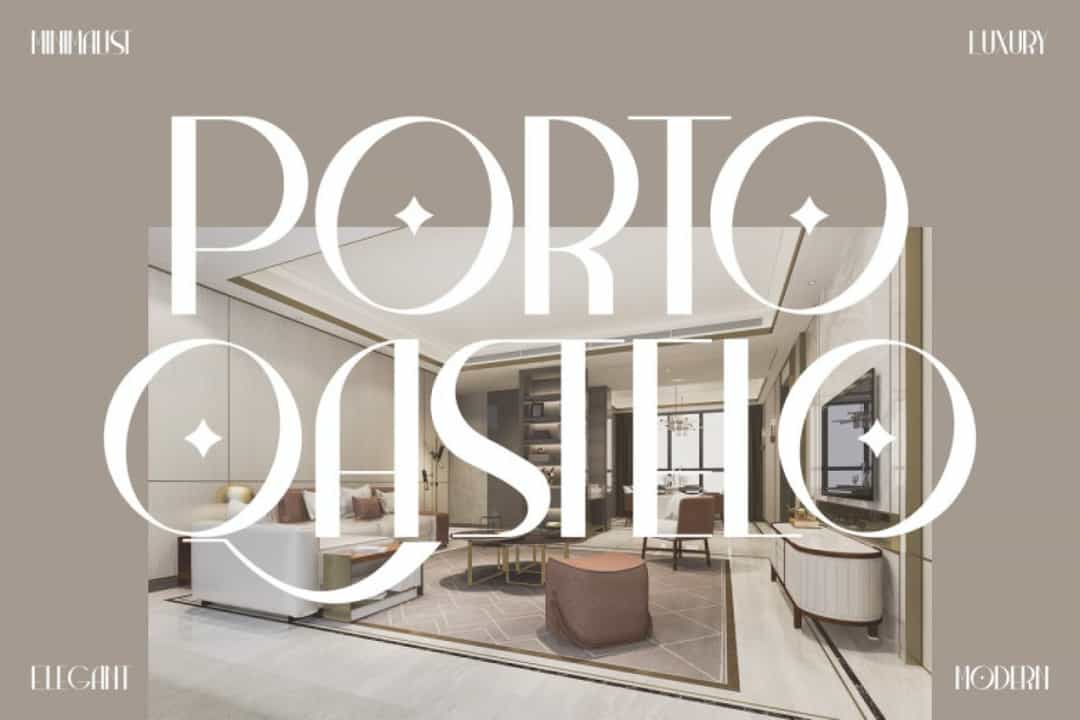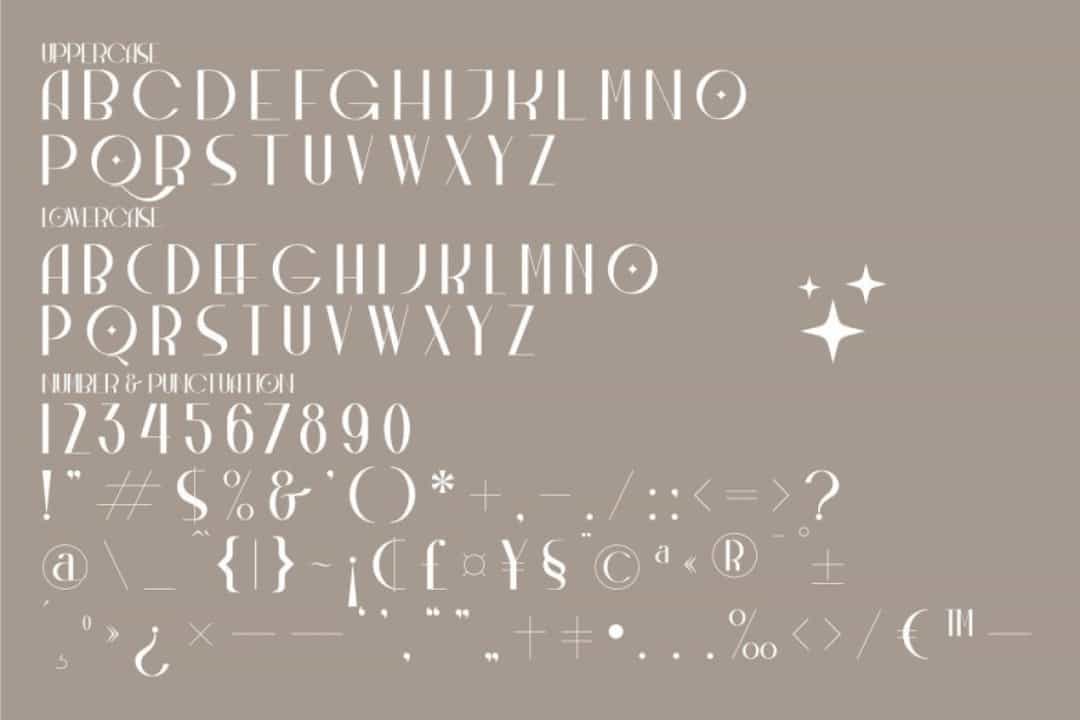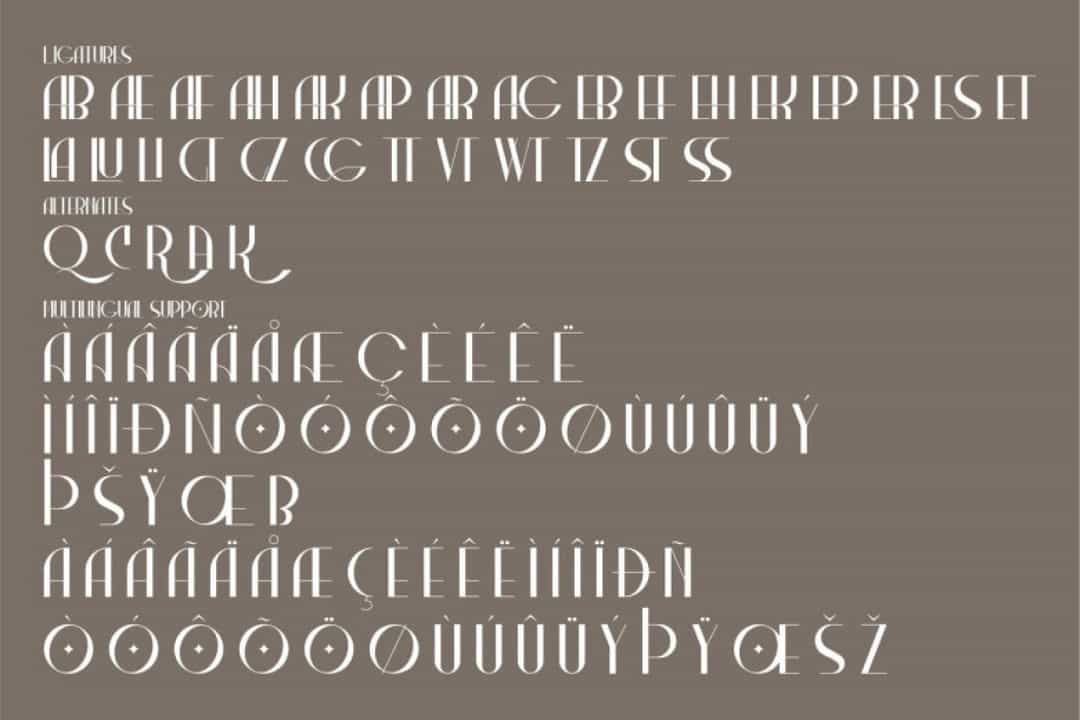
Discover Porto Qastelo Font, part of the Sans Serif Display collection—a versatile and unique font perfect for adding a personal touch to your projects. Download it for free and enjoy crafting designs with style, from invitations to social media posts. This font is available exclusively for personal use, giving you the freedom to create without limits. Unlock your creativity with Porto Qastelo Font today!
Porto Qastelo is a modern and stylish display font. PUA encoded, this font enables access to all fonts, swashes and characters easily! Fall in love with its amazing versatility then use it to craft stunning designs!